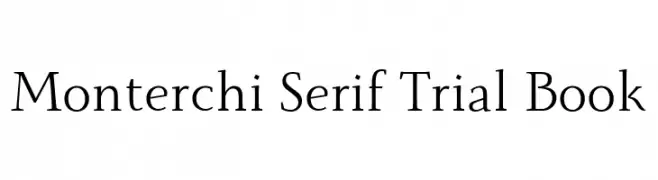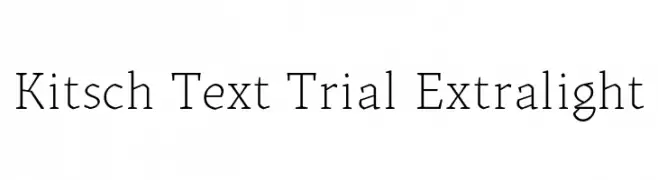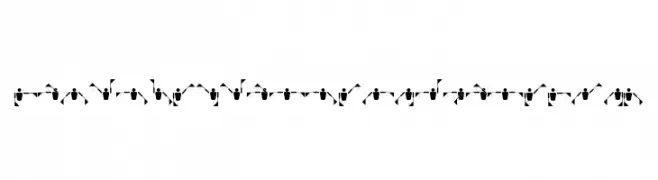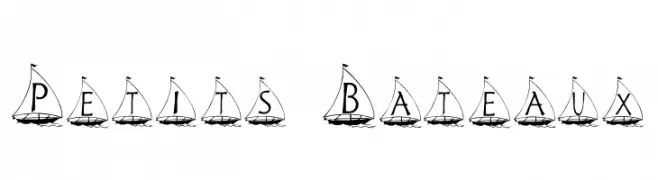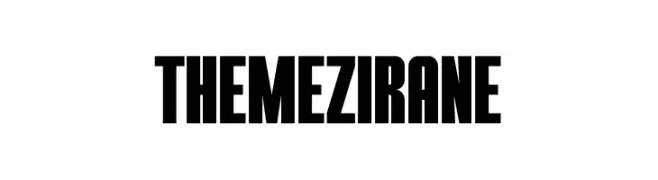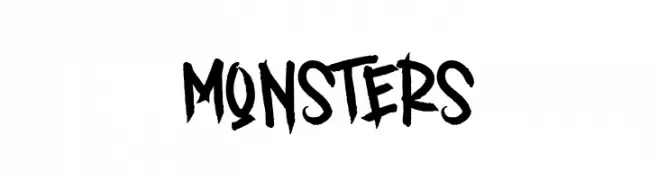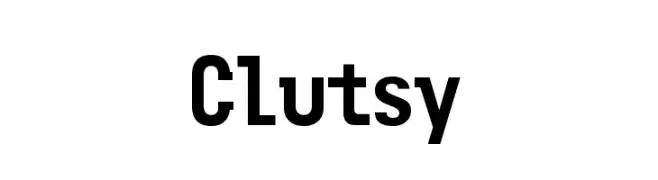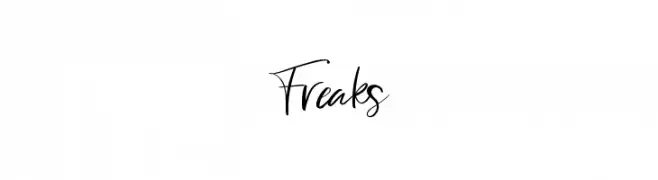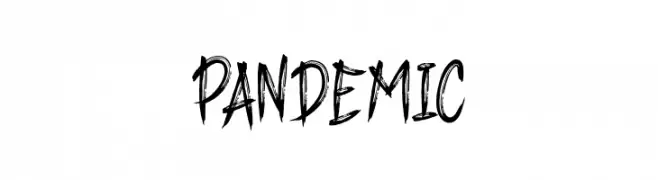
A classic serif font with elegant, refined letterforms and sharp serifs.
A refined and elegant font with thin, elongated strokes and slight contrast.
A semaphore flag-inspired font with figures holding flags to represent characters.
A decorative font with letters integrated into sailboat designs, perfect for nautical themes.
A bold, condensed font with thick, uniform strokes for a strong visual impact.
A bold, hand-drawn font with jagged edges and an energetic style.
A bold slab serif font with a modern yet classic style.
A dynamic, expressive handwritten font with flowing cursive letterforms.
A bold, hand-drawn font with an expressive, edgy style.
A bold, hand-drawn font with an energetic and playful style.